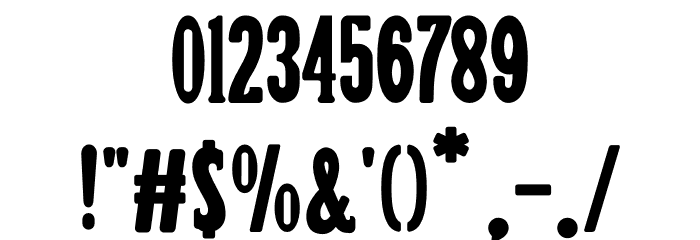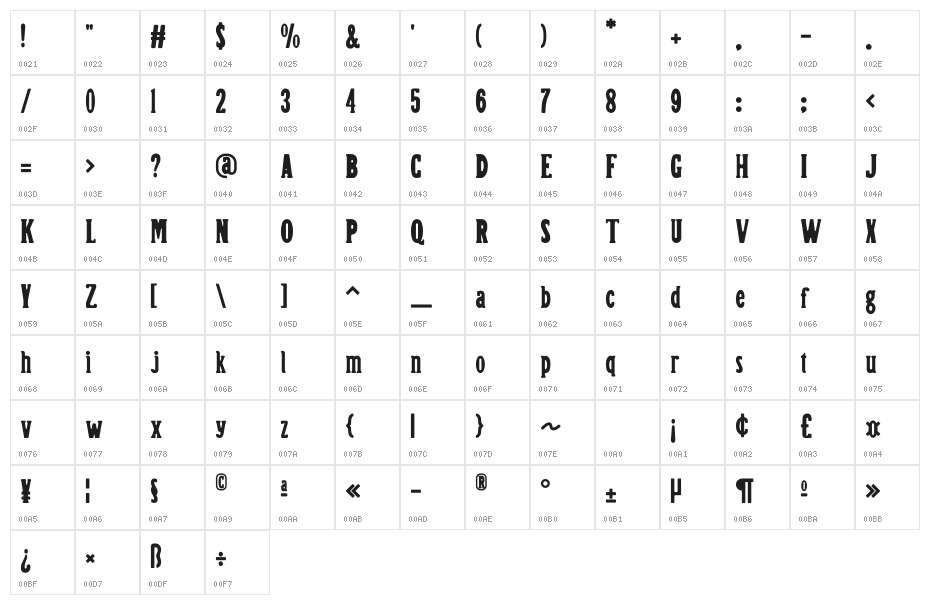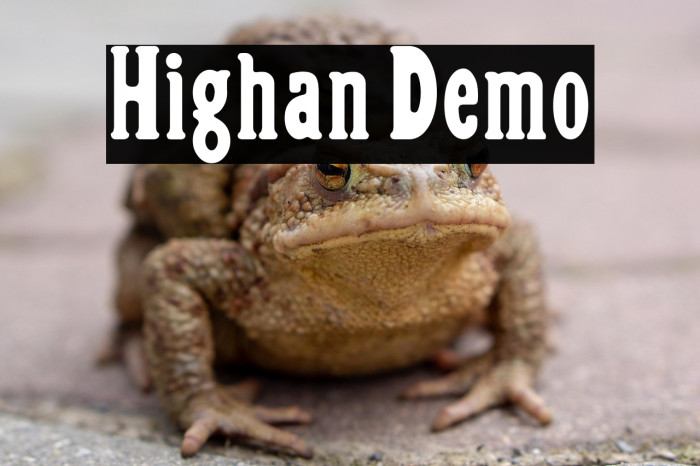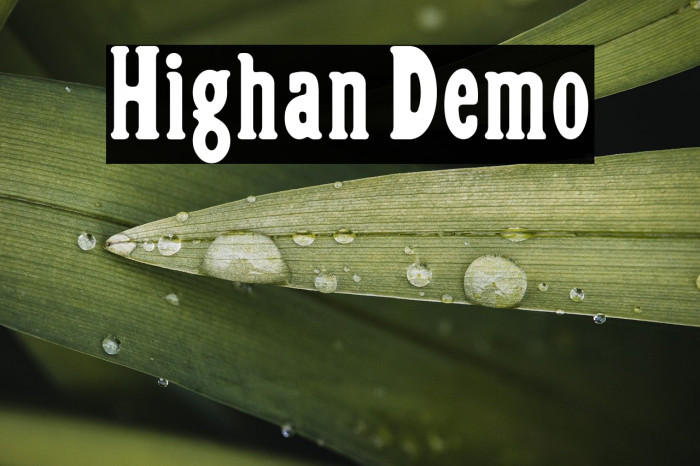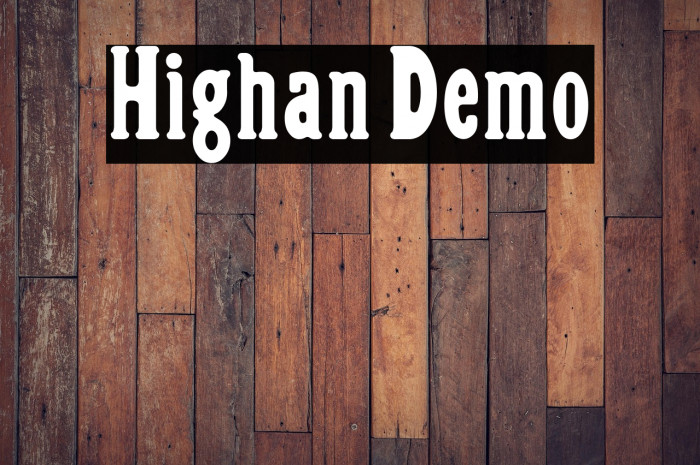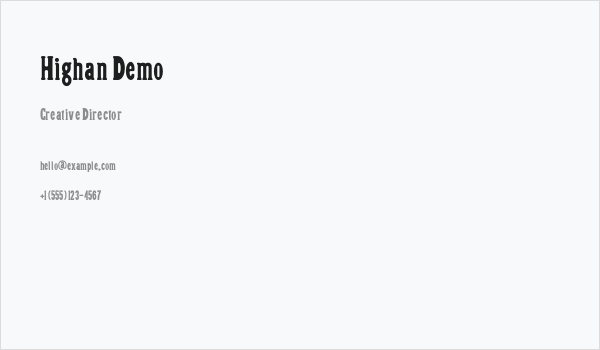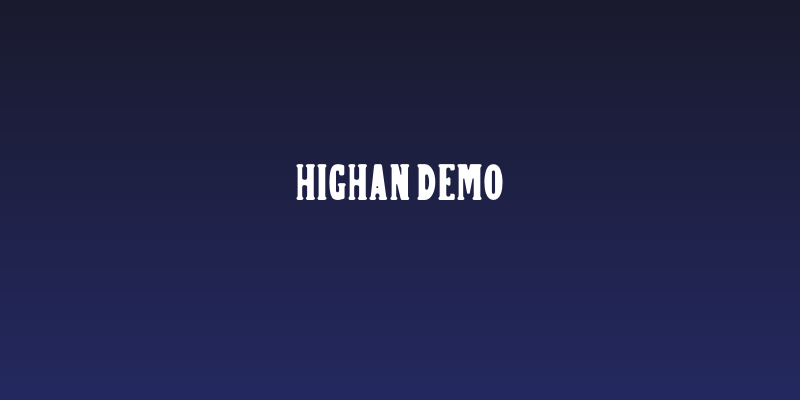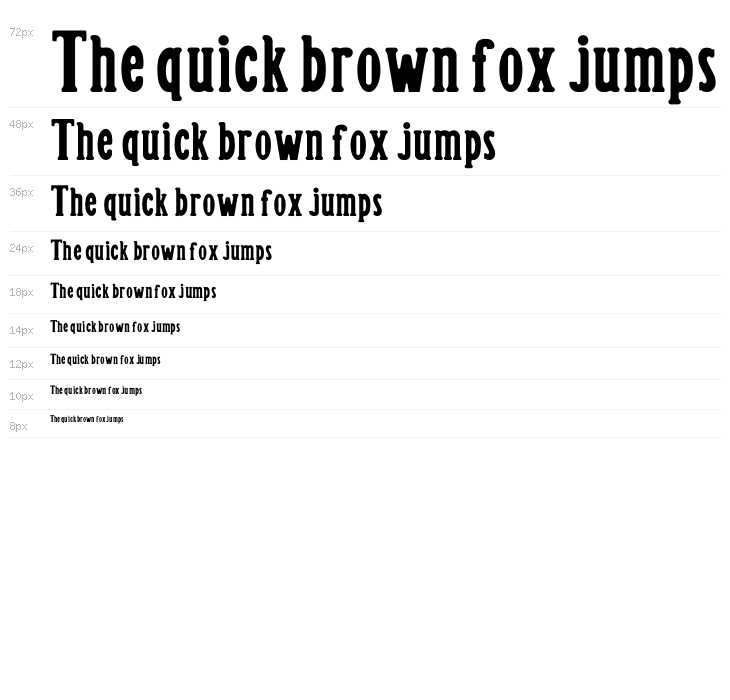
Highan Demo Font
Highan Demo Description
This font features bold, rounded characters with a playful and modern aesthetic. The numbers and special characters are designed with a consistent thickness, providing a uniform appearance across all glyphs. The characters are slightly condensed, which enhances readability while maintaining a strong visual impact. The font's style is both contemporary and approachable, making it suitable for a variety of creative applications. Its boldness ensures that it stands out, making it ideal for attention-grabbing designs. The rounded edges give it a friendly and inviting feel, which can be appealing in both digital and print media.
| Proposed Projects | Ideal for branding, advertising, children's books, and playful design projects. |